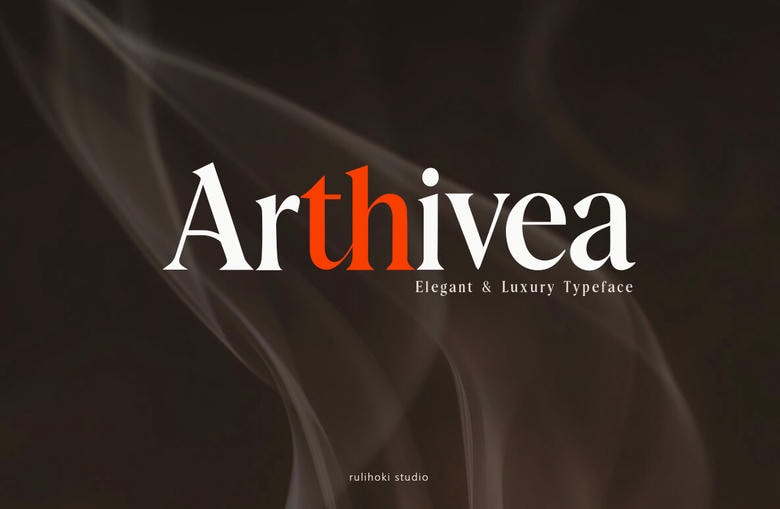
Arthivea Font
Arthivea Font is a sleek serif typeface that has been created in a manner of balance and elegance as well as a modern touch of sophistication. Arthivea is a sophisticated serif typeface with elegant curves, elegant serifs and a contemporary touch on editing. The font is also ideal in luxury branding, fashion, perfume packaging, editorial layouts and logos, as well as wedding invitations and upscale design projects.
Its modern nature shapes produce a unique but classic look that makes Arthivea the perfect choice to express the elegance, exclusivity, and high-end beauty direction by the designers. Arthivea provides a refined and stylish visual image whether it is a headline, brand identity or an advanced typography composition.
Arthivea Serif Font